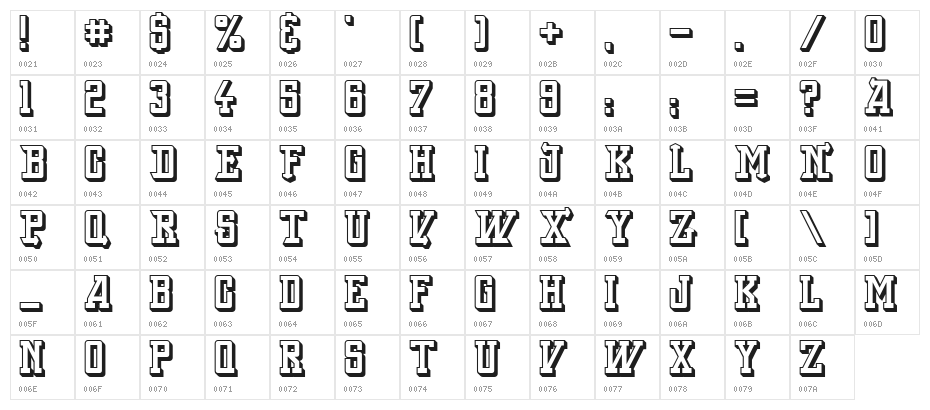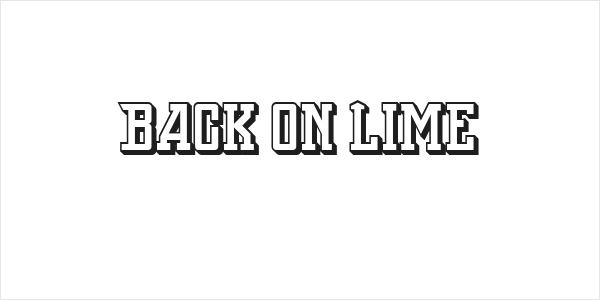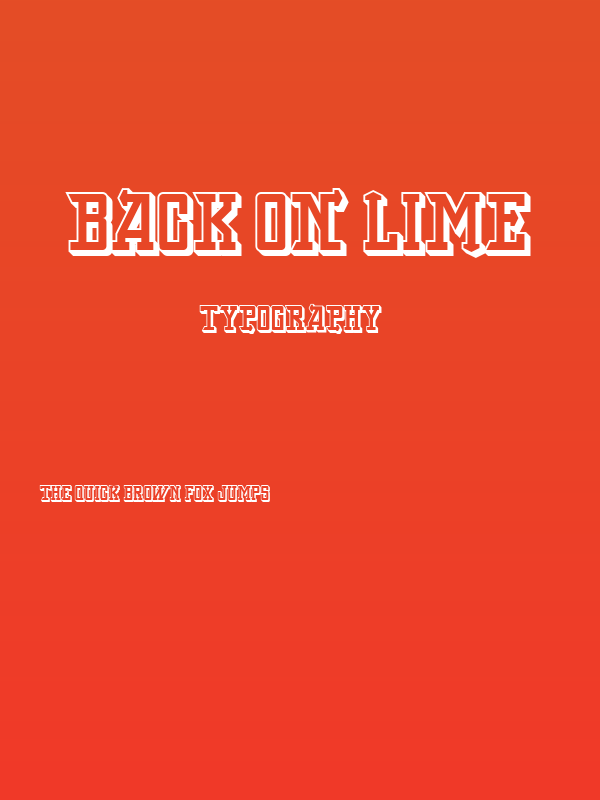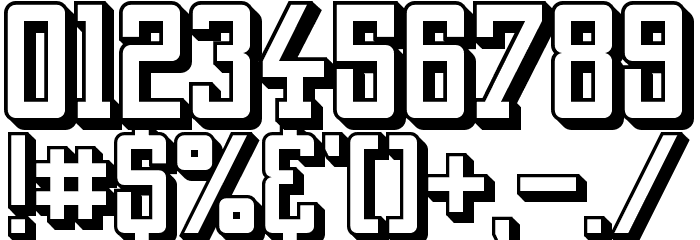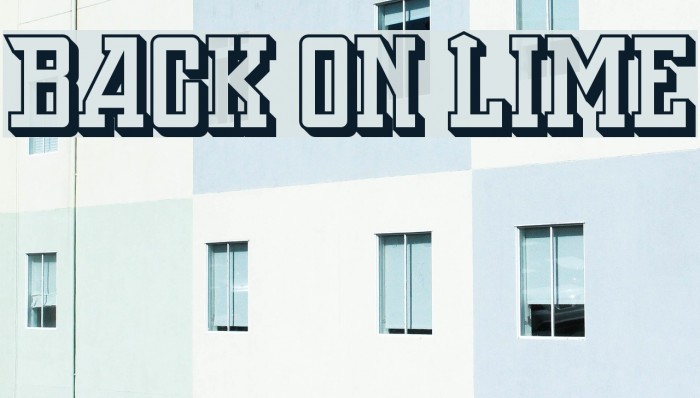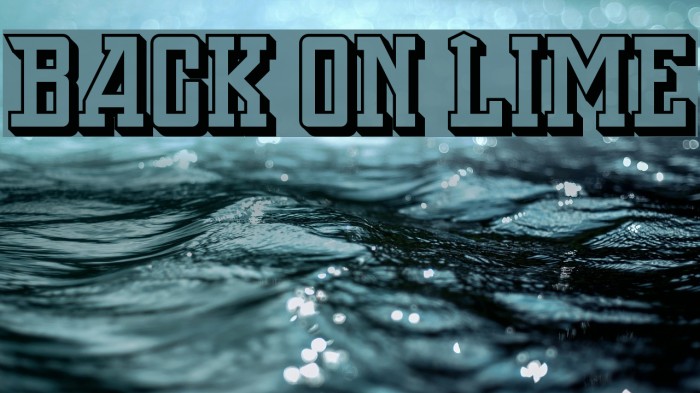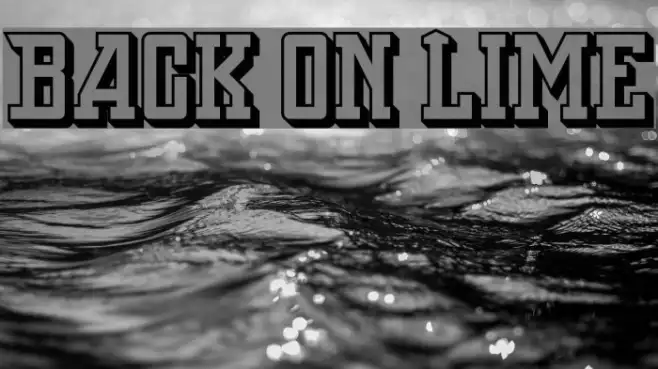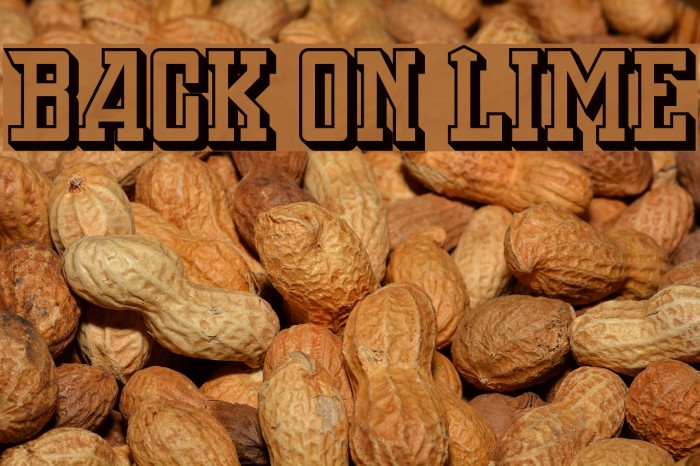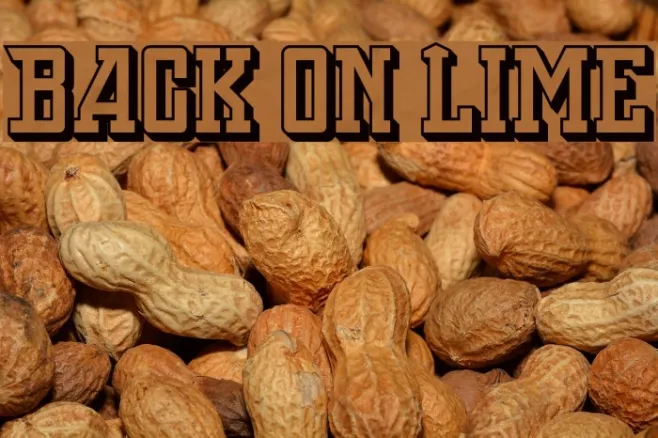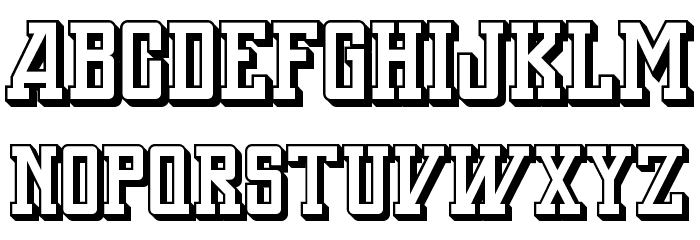
Back On Lime Font
Back On Lime Description
This font features a bold, three-dimensional appearance with a strong, shadowed outline that gives it a striking and impactful look. The characters are uppercase and have a blocky, geometric style, making them highly legible and suitable for attention-grabbing designs. The font's design incorporates sharp angles and clean lines, which contribute to its modern and robust aesthetic. The numbers and special characters maintain the same bold and structured style, ensuring consistency across all elements. This font is ideal for projects that require a commanding presence and a sense of strength and stability.
| Proposed Projects | Ideal for posters, headlines, logos, and any design requiring a bold statement. |